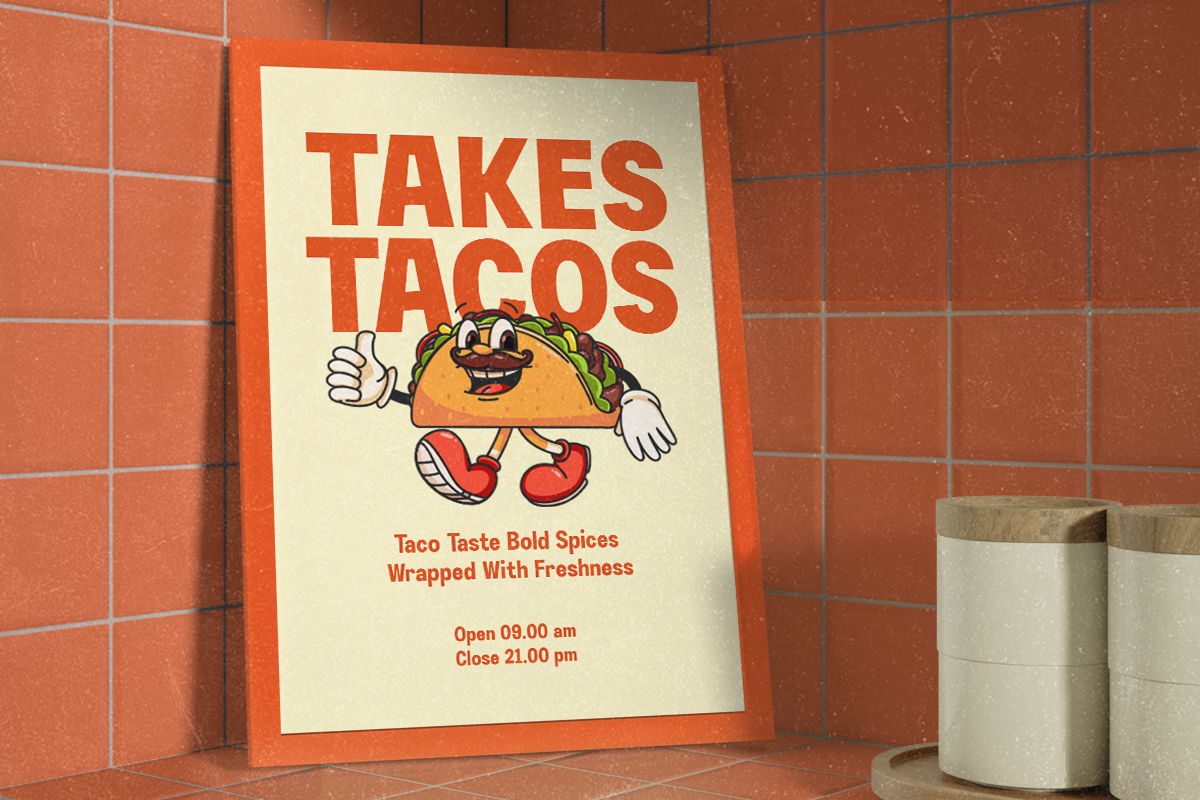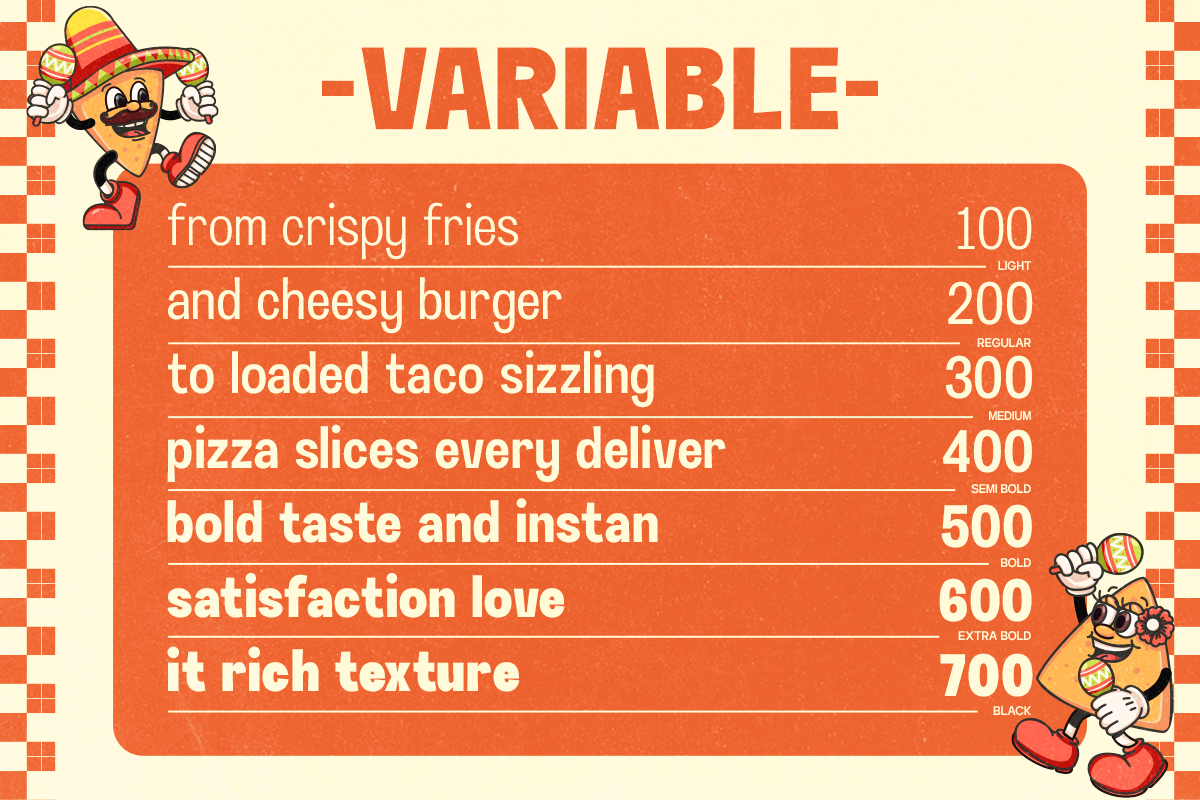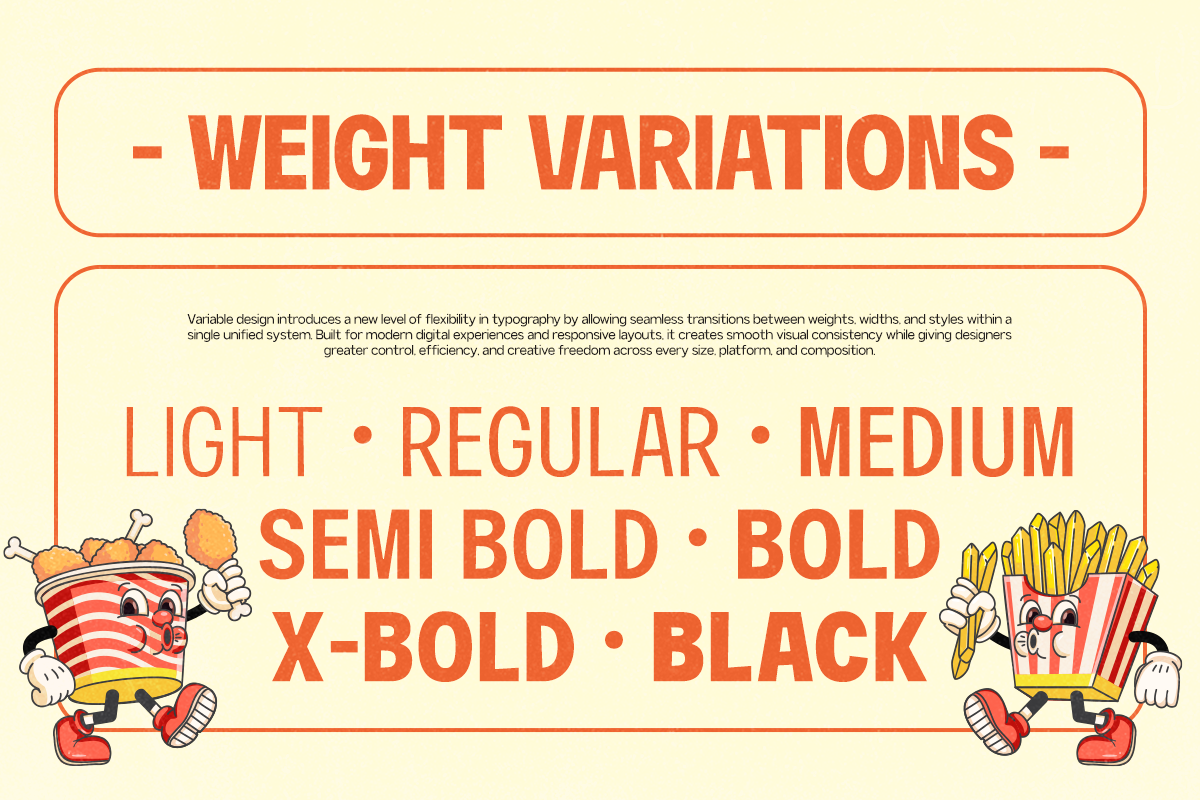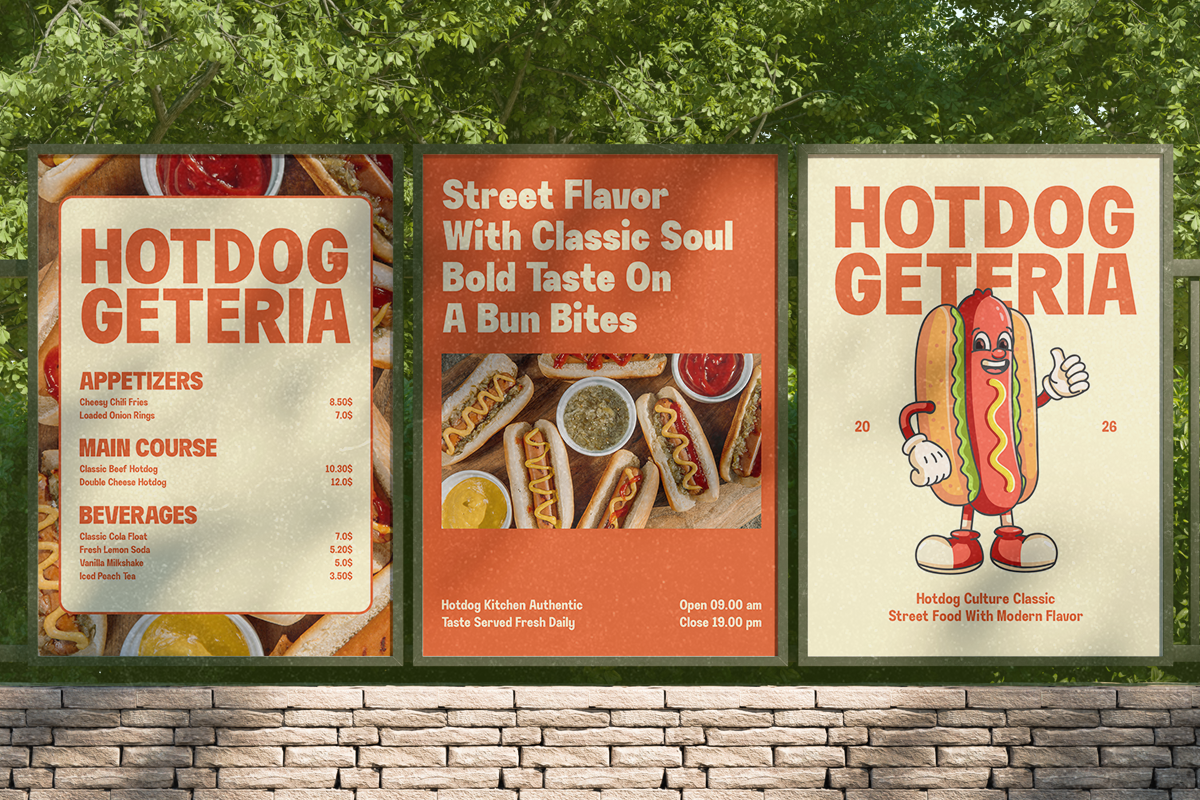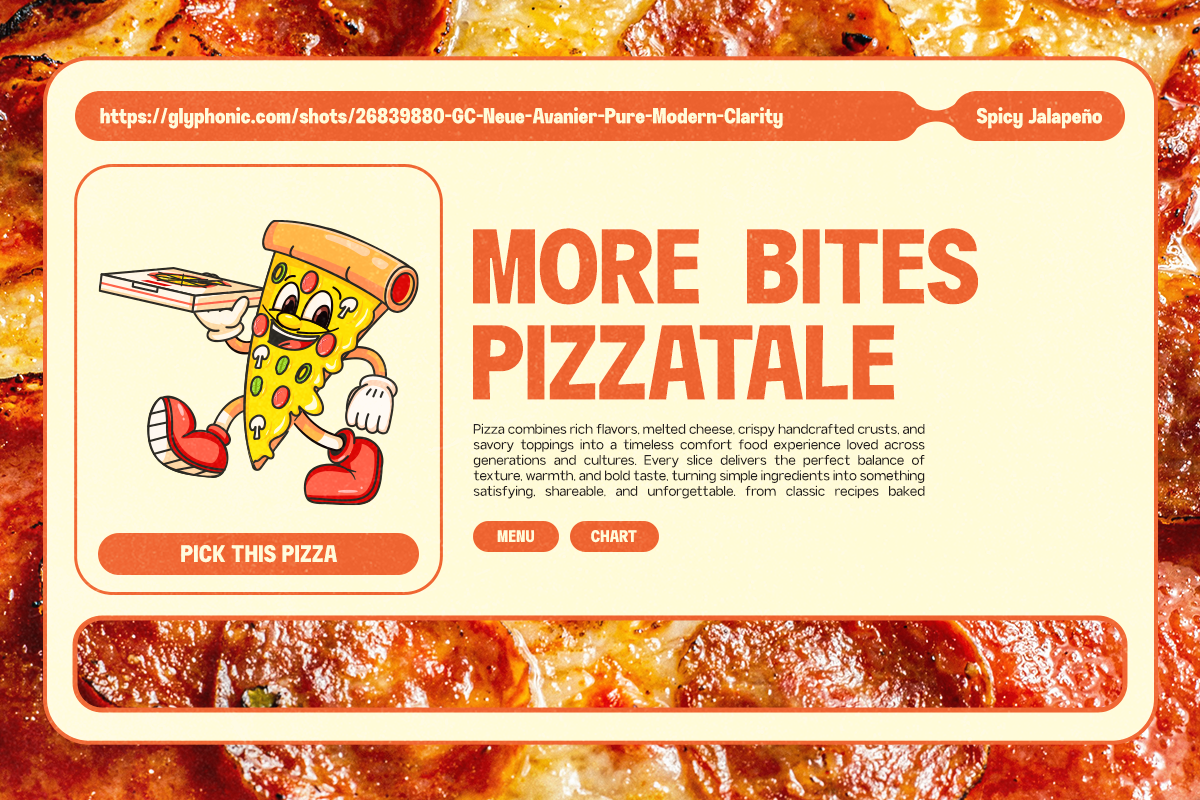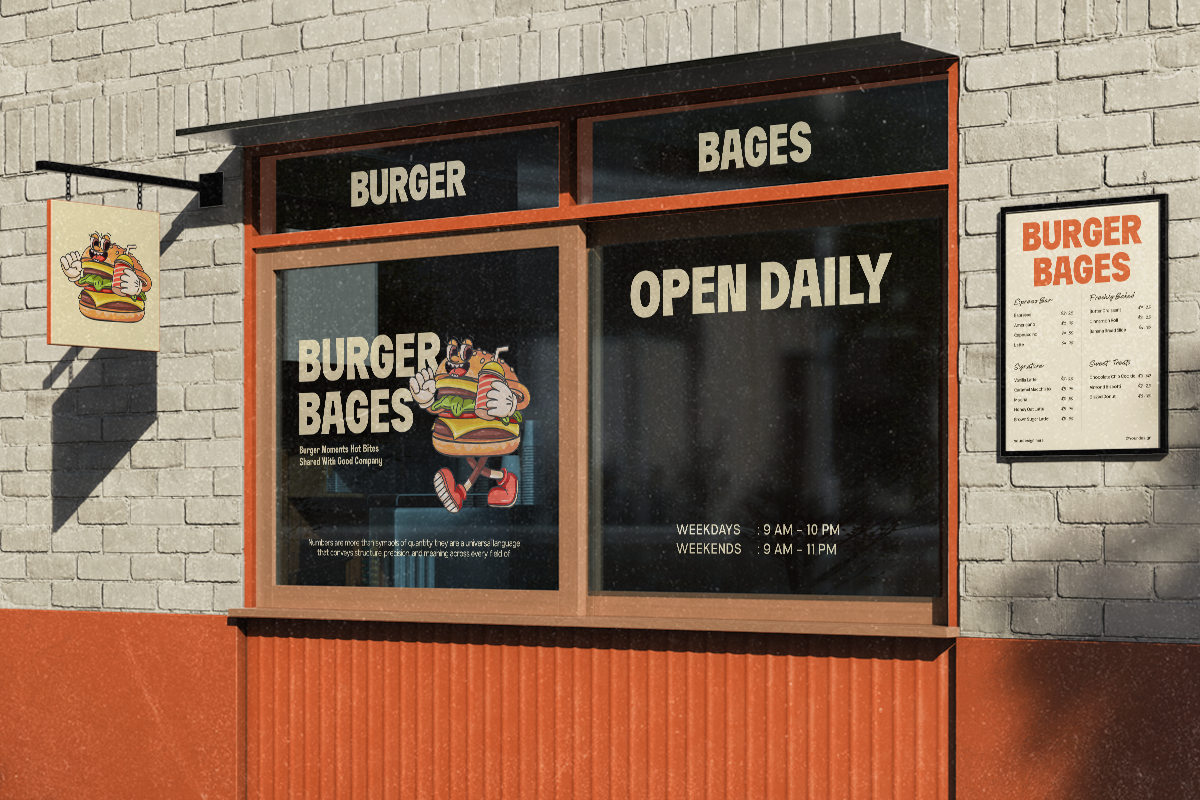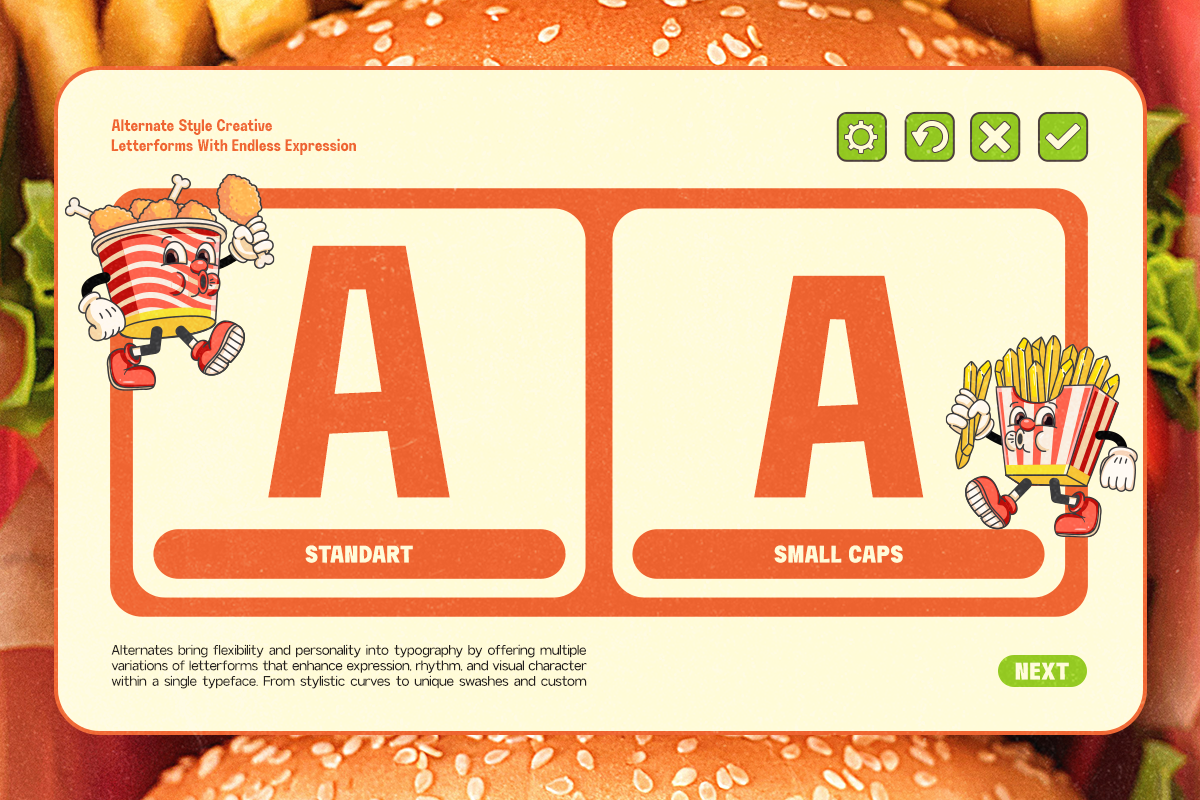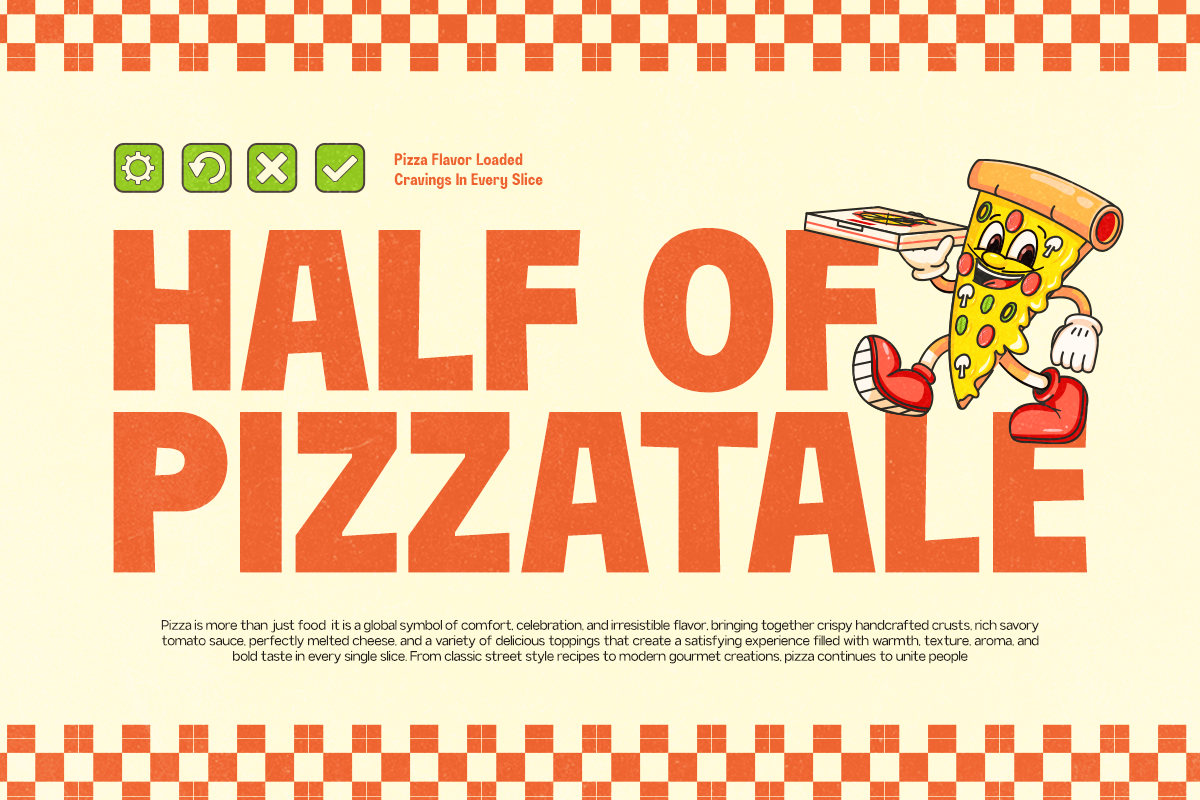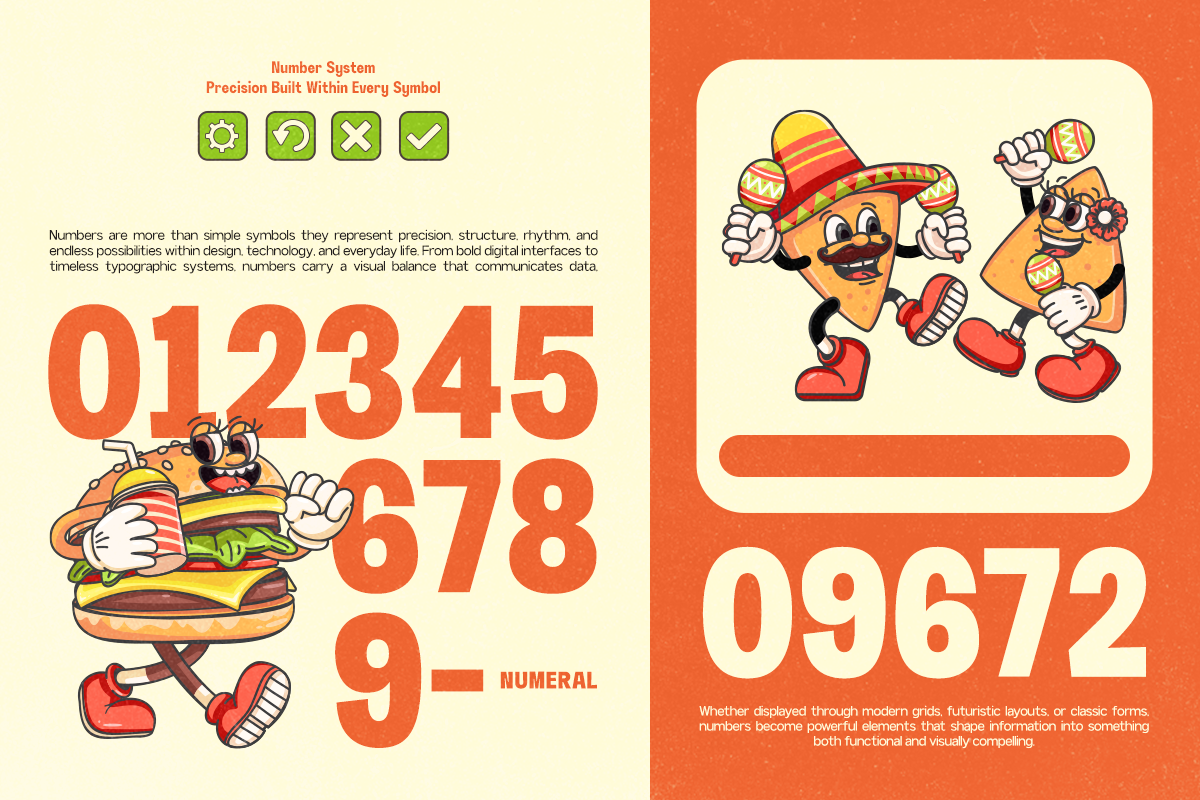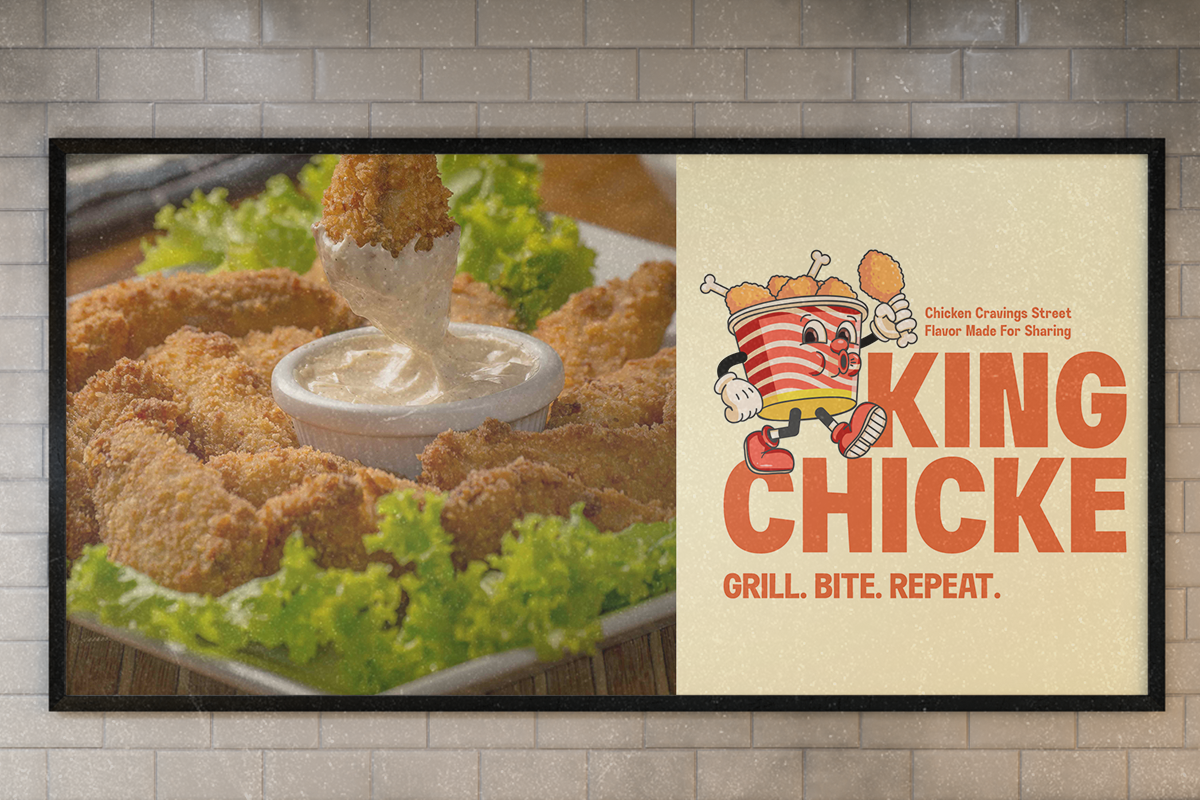
GC Neue Avenier - Bold Display Sans
GC Neue Avenier – Bold Display Sans is a bold display sans typeface created to deliver warmth, energy, and unforgettable visual impact. Built with oversized letterforms, clean geometric construction, and confident proportions, GC Neue Avenier combines contemporary simplicity with a cheerful personality, making it ideal for expressive branding and eye-catching typography.
Designed with strong shapes and balanced spacing, GC Neue Avenier offers excellent readability while maintaining a playful and approachable character. Its bold silhouette creates an inviting visual rhythm, making it perfect for café branding, food packaging, posters, menus, social media graphics, and modern advertising where personality and clarity go hand in hand.
Crafted for high-impact display applications, GC Neue Avenier performs beautifully across both print and digital media. The combination of solid strokes, clean edges, and modern proportions gives the typeface a fresh yet timeless appearance, allowing it to adapt effortlessly to vibrant commercial and lifestyle design projects.
* Bold Display Sans Style
* Clean Geometric Construction
* Strong & Friendly Character
* High-Impact Display Letterforms
* Excellent Readability
* Perfect for Headlines & Branding
* Suitable for Café, Food Packaging, Posters & Editorial
* Optimized for Print and Digital Design
* Multilingual Support (170+ Languages)
GC Neue Avenier delivers bold warmth — a modern display sans crafted to create confident, inviting, and memorable typography for contemporary brands.